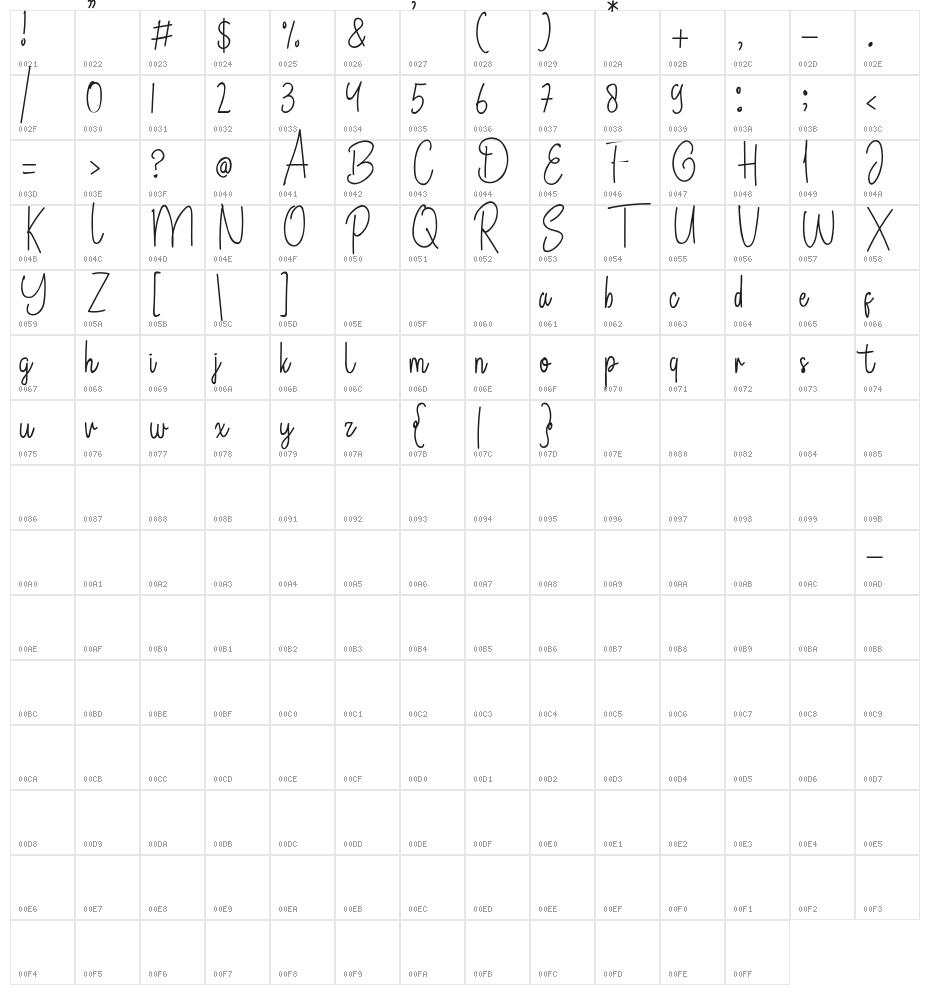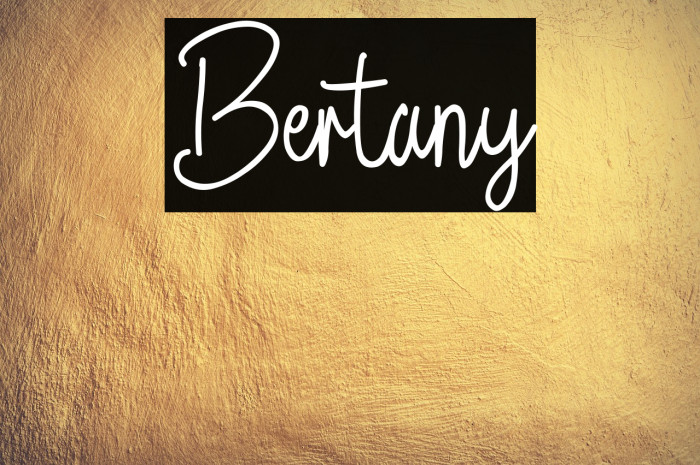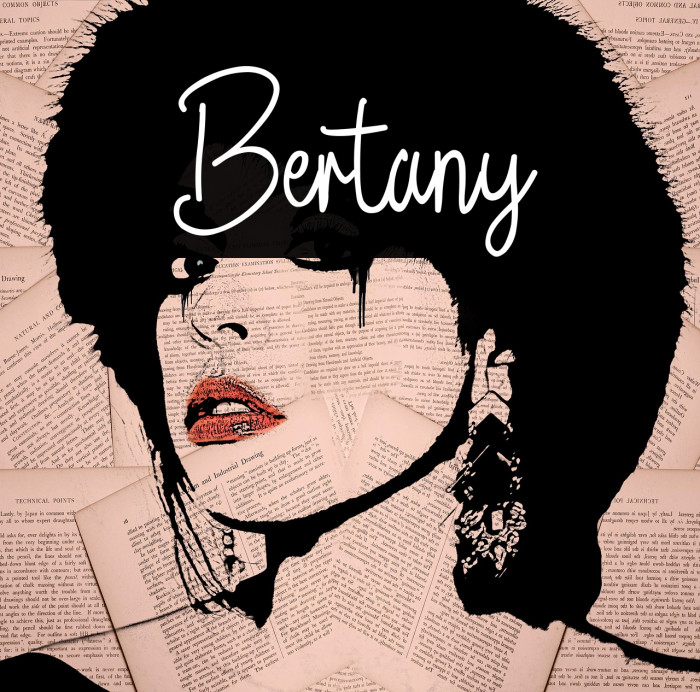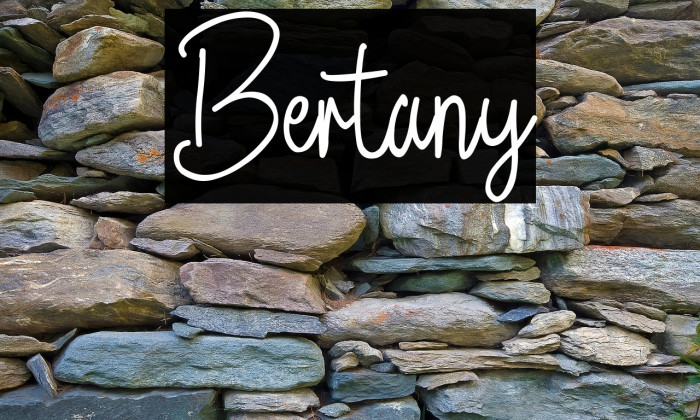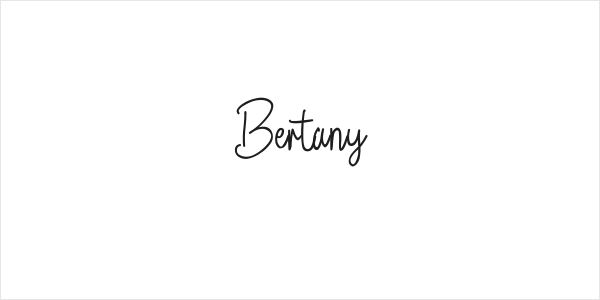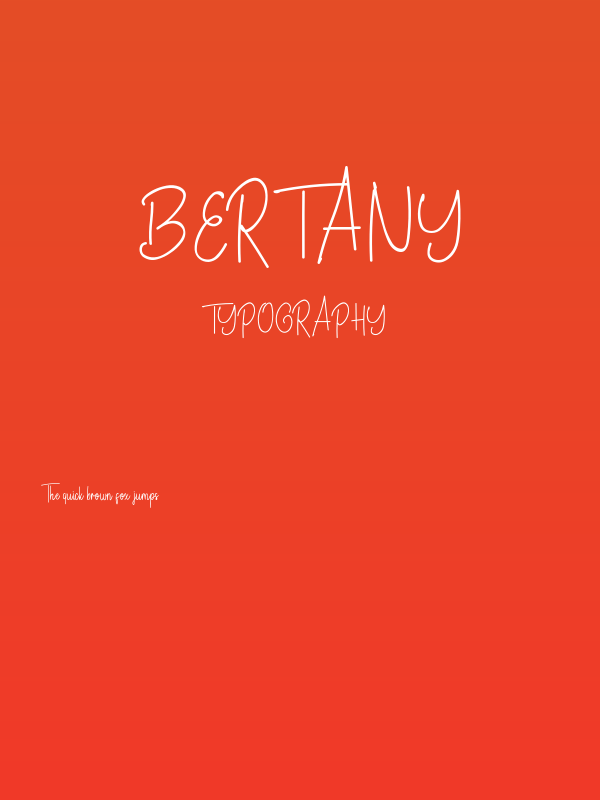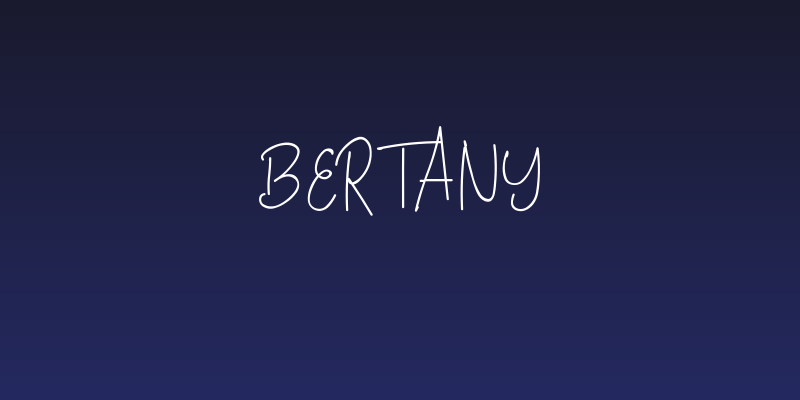
Bertany Font
Bertany Description
This font features a playful and casual handwritten style, characterized by its flowing curves and slightly irregular strokes. The uppercase letters are tall and slender, while the lowercase letters maintain a consistent, smooth flow. The numbers are rounded and maintain the same playful aesthetic. Special characters are integrated seamlessly, adding to the font's versatility. The overall appearance is friendly and approachable, making it suitable for a variety of informal applications.
| Proposed Projects | Ideal for greeting cards, invitations, personal branding, and playful logos. |